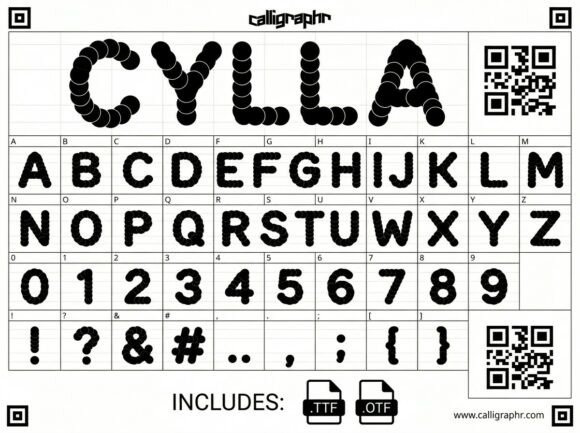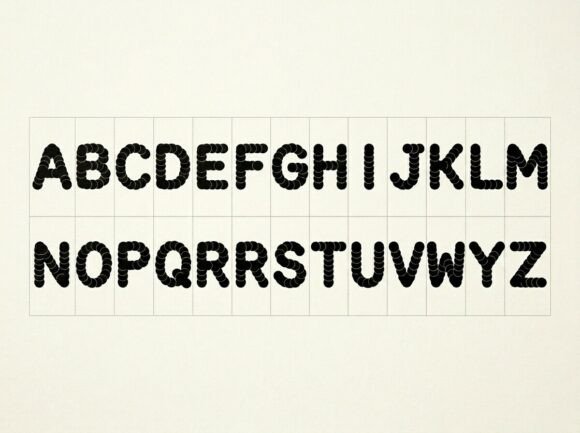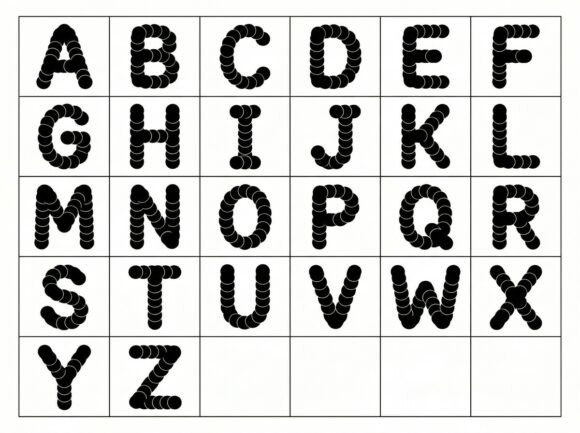
Cylla Font: Add a Touch of Whimsy to Your Creative Projects
Are you looking for a font that can add a playful and imaginative touch to your creative projects? Look no further than Cylla, a unique display font that is constructed entirely from overlapping circular nodes. This bold and rounded typeface is perfect for designers and crafters who want to infuse their work with a sense of nostalgic charm and artisanal energy.
The Unique Features of Cylla Font
Cylla font is a one-of-a-kind “bubble-dot” typeface that features bold, rounded characters that evoke the nostalgic feel of vintage digital displays and pop-art aesthetics. The font’s heavy visual weight and organic, pebbled texture make it an extraordinary choice for a variety of design projects, including youth-oriented branding, playful packaging, video game titles, and vibrant social media graphics.
One of the standout features of Cylla font is its unique construction from overlapping circular nodes. This gives the font a distinctive, tactile charm that is sure to grab attention and leave a lasting impression. Whether you’re designing a logo, headline, or social media graphic, Cylla font is the perfect choice for adding a touch of imaginative whimsy to your work.
Perfect for Youth-Oriented Branding and Playful Packaging
Cylla font is particularly well-suited for youth-oriented branding and playful packaging projects. Its bold, rounded characters and nostalgic aesthetic make it a perfect fit for brands that want to appeal to a younger audience. Whether you’re designing a logo, label, or packaging material, Cylla font is sure to help your brand stand out and connect with your target audience.
In addition to its use in branding and packaging, Cylla font is also a great choice for video game titles and vibrant social media graphics. Its heavy visual weight and playful texture make it perfect for creating eye-catching headlines and graphics that will grab attention and drive engagement.
Key Benefits of Using Cylla Font
- Unique and eye-catching design: Cylla font’s distinctive “bubble-dot” design makes it a standout choice for designers who want to add a touch of whimsy to their work.
- Nostalgic aesthetic: The font’s bold, rounded characters and nostalgic texture evoke the feel of vintage digital displays and pop-art aesthetics.
- Perfect for youth-oriented branding: Cylla font is a great choice for brands that want to appeal to a younger audience and add a touch of playfulness to their branding.
- Versatile: Cylla font can be used in a variety of design projects, including logos, headlines, social media graphics, and more.
How to Use Cylla Font in Your Design Projects
To get the most out of Cylla font, try experimenting with different colors, textures, and design elements. The font’s bold, rounded characters and nostalgic texture make it a great choice for creating eye-catching headlines and graphics, so don’t be afraid to get creative and try new things.
Cylla font is a unique and versatile display font that is perfect for designers and crafters who want to add a touch of whimsy to their creative projects. Its bold, rounded characters and nostalgic aesthetic make it a great choice for youth-oriented branding, playful packaging, video game titles, and vibrant social media graphics. With its heavy visual weight and organic, pebbled texture, Cylla font is sure to help your headlines stand out with a friendly and unforgettable personality.